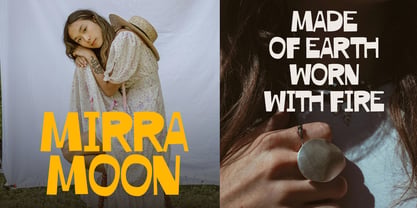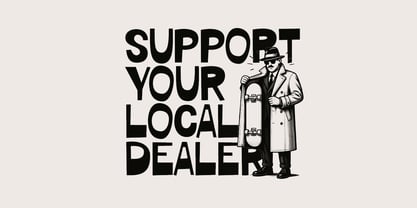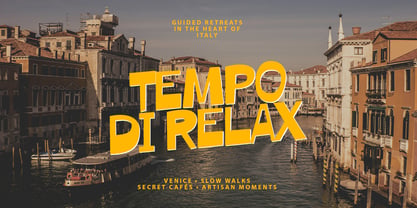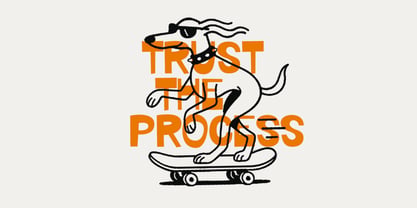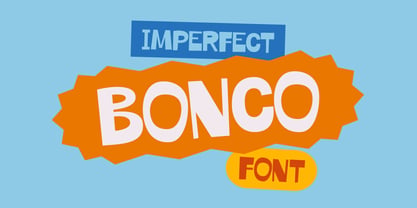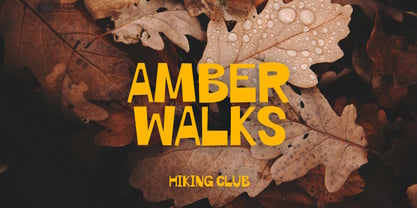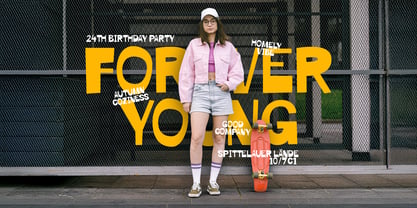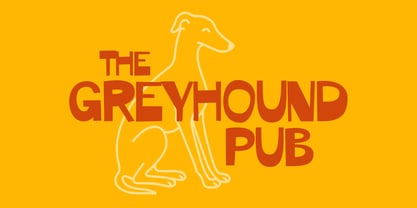
Bonko
by Supfonts
The Bonko Font Family was designed by Dmitrii Chirkov and published by Supfonts. Bonko contains 1 styles. More about this family
Bonco is a bold and playful display font with a fun, imperfect charm. Its hand-drawn feel and bouncy letterforms bring energy and personality to any project, making it ideal for children’s books, posters, stickers, product packaging, invitations, and social media graphics. The slightly irregular shapes create a friendly, approachable vibe while maintaining great readability. Bonco is perfect for adding a touch of joy, creativity, and uniqueness to your designs, helping them stand out in a memorable and delightful way.